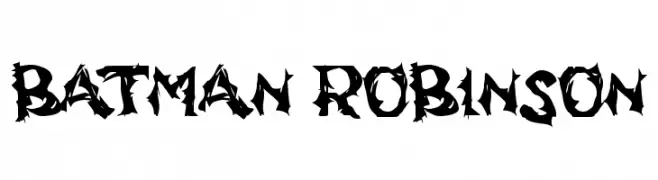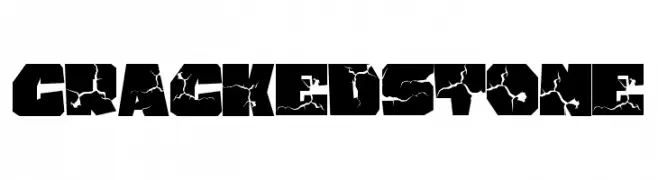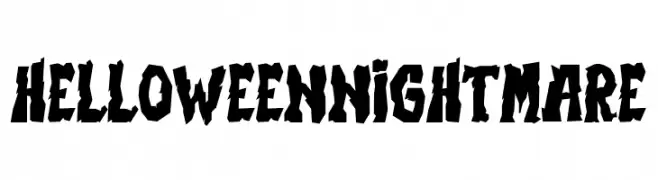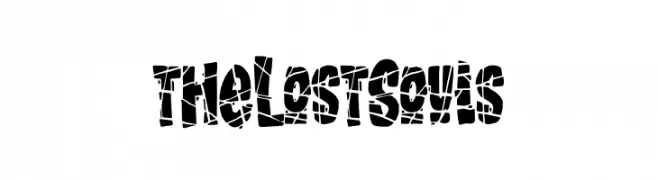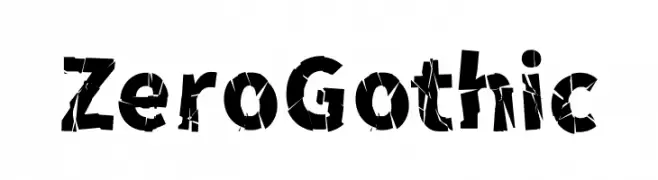
A bold, decorative font with a cracked glass texture, perfect for impactful designs.
A bold, rugged font with a cracked stone appearance, ideal for dramatic designs.
A bold, jagged font with an eerie, horror-inspired design.
A bold, jagged font with sharp, thorn-like edges.
A bold, jagged font with a broken glass effect, ideal for impactful designs.
A bold, fragmented font with a chaotic and distressed appearance.
A bold, distressed font with sharp, angular edges and a rebellious aesthetic.
A bold, distressed font with a fragmented, dynamic appearance.
A rugged, distressed font with a fragmented, edgy style.
A bold, distressed font with a fragmented, edgy appearance.